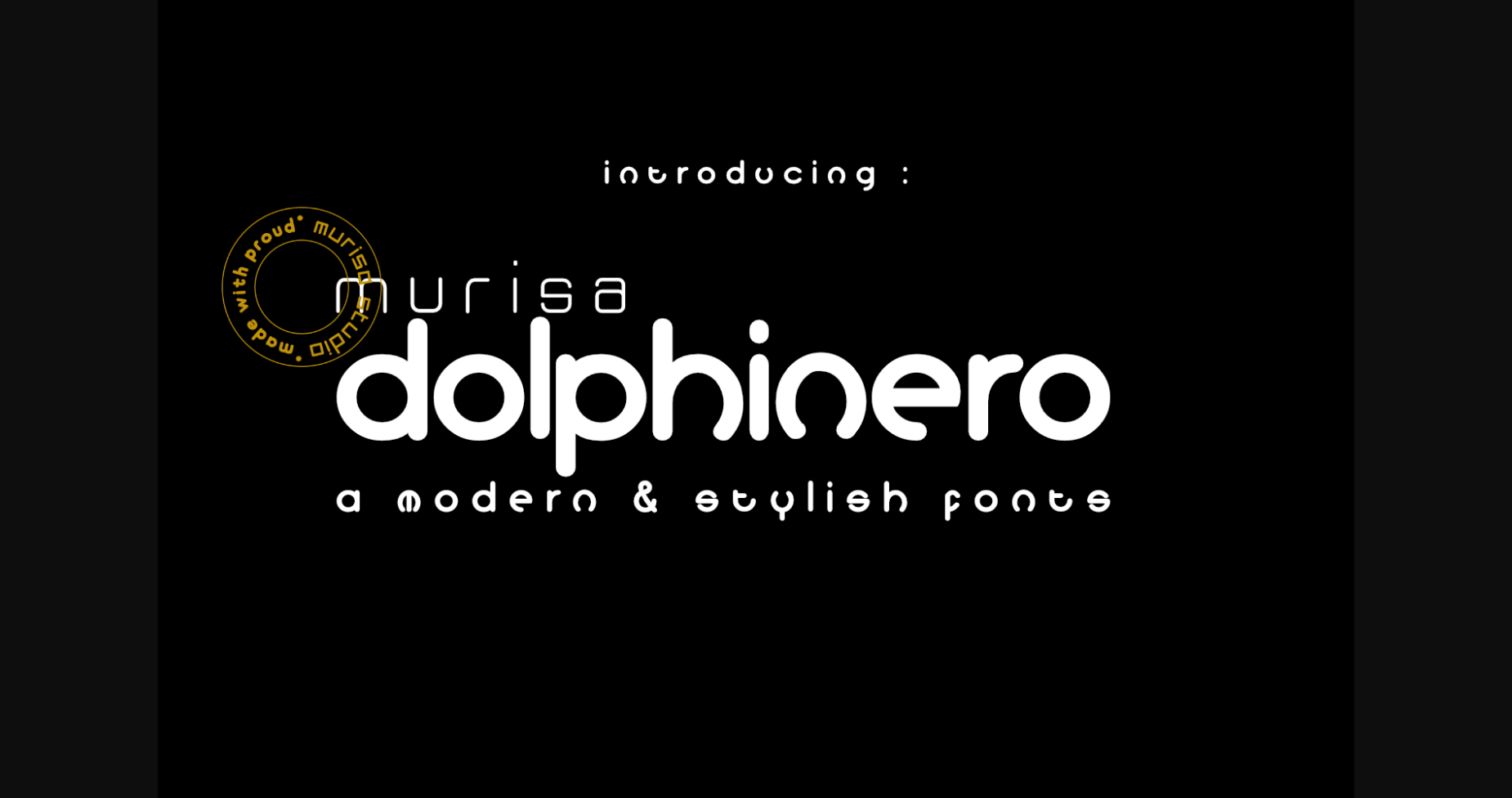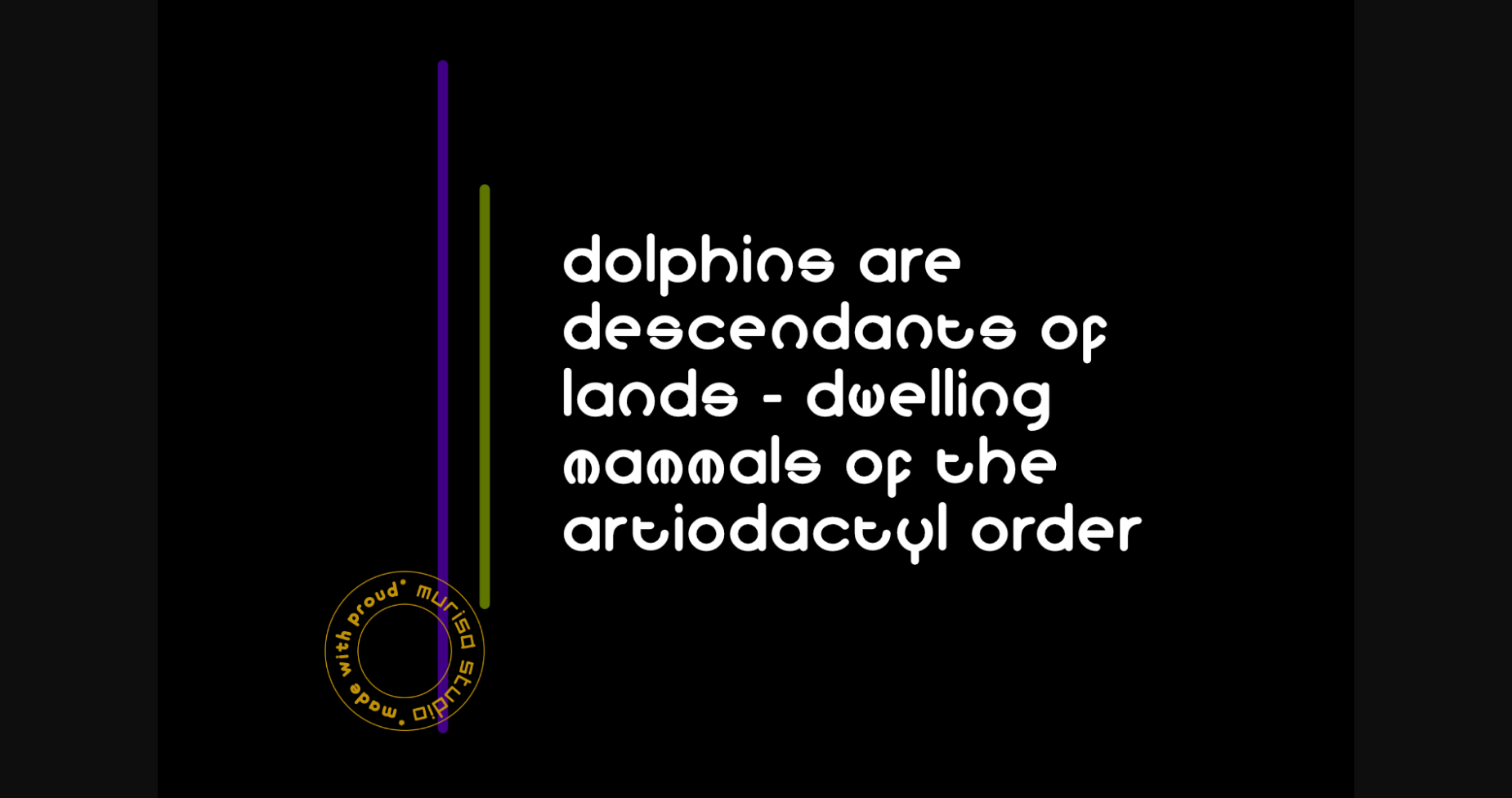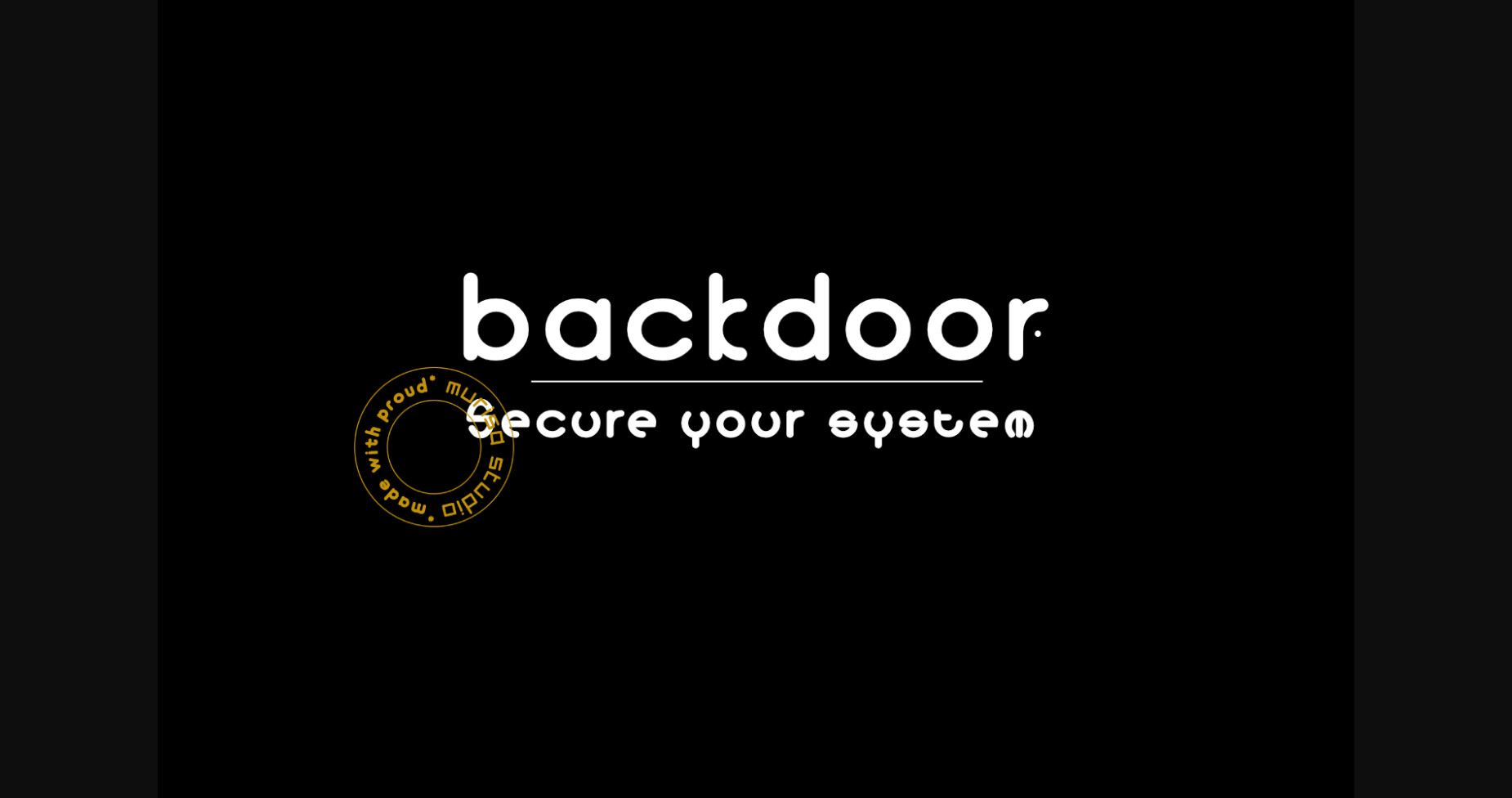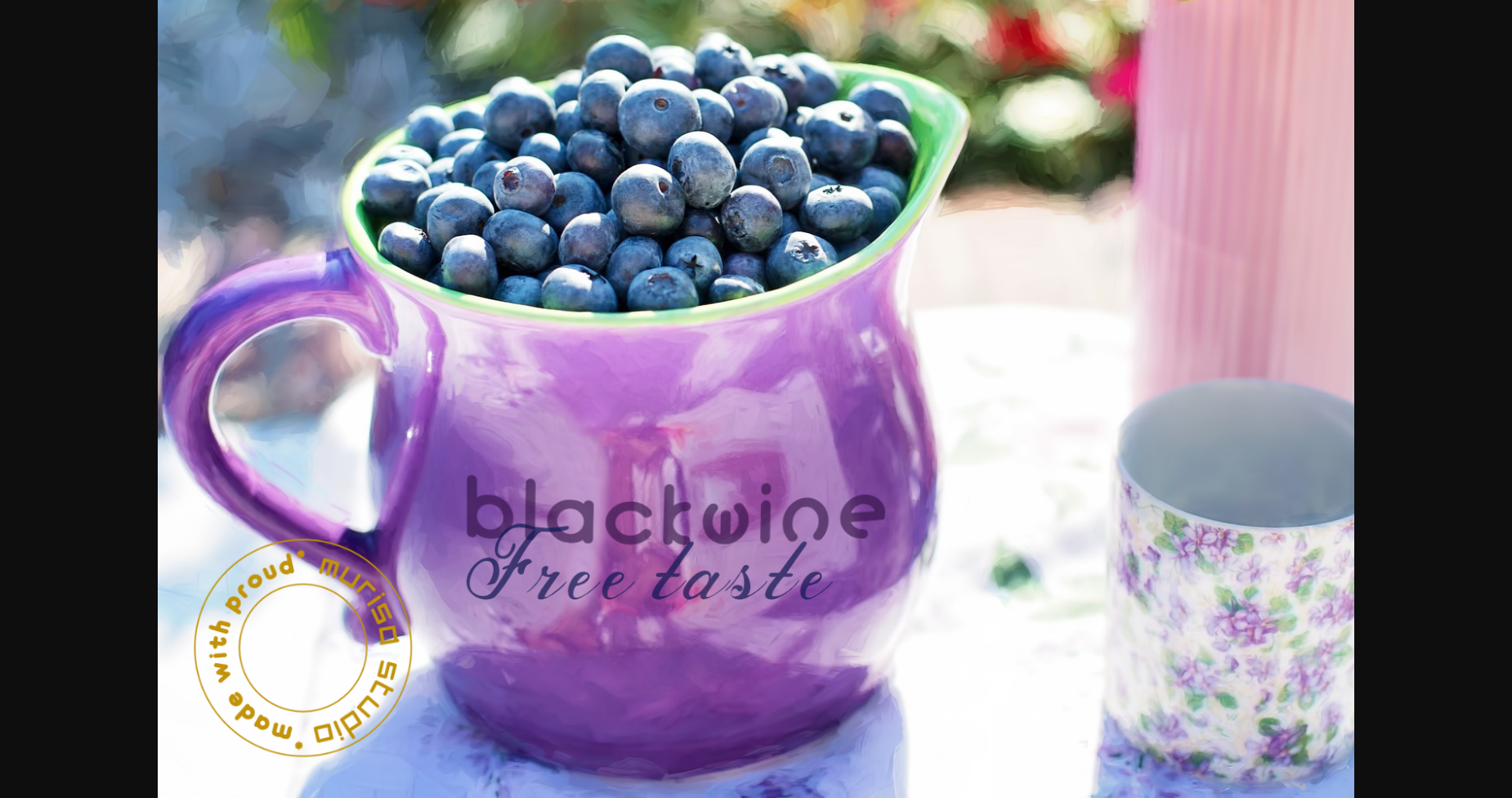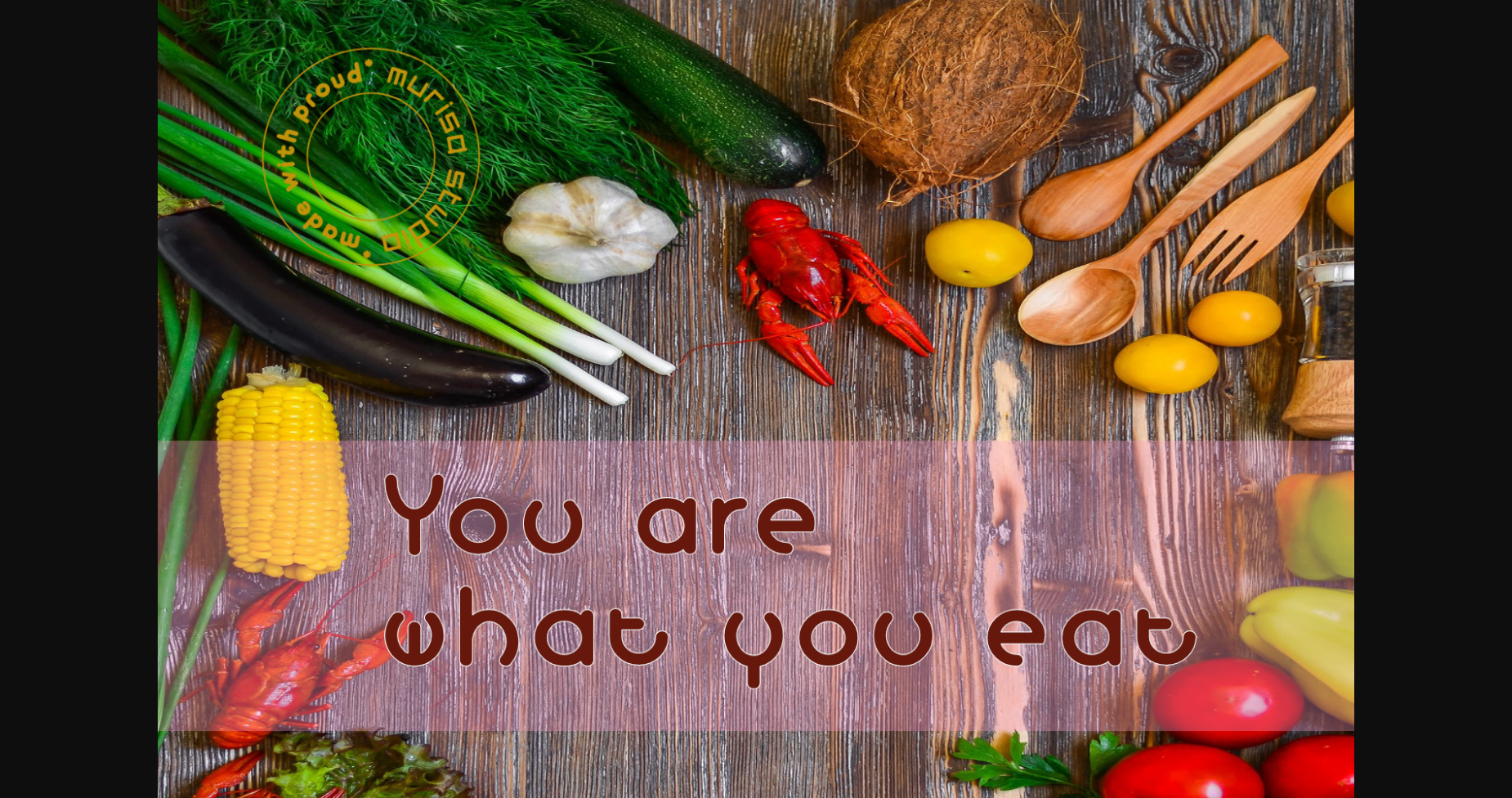
Dolphinero Font
About Dolphinero Font
Dolphinero is a modern and adaptable sans serif font. It can easily be matched to an incredibly large set of projects, so add it to your creative ideas and notice how it makes them stand out!